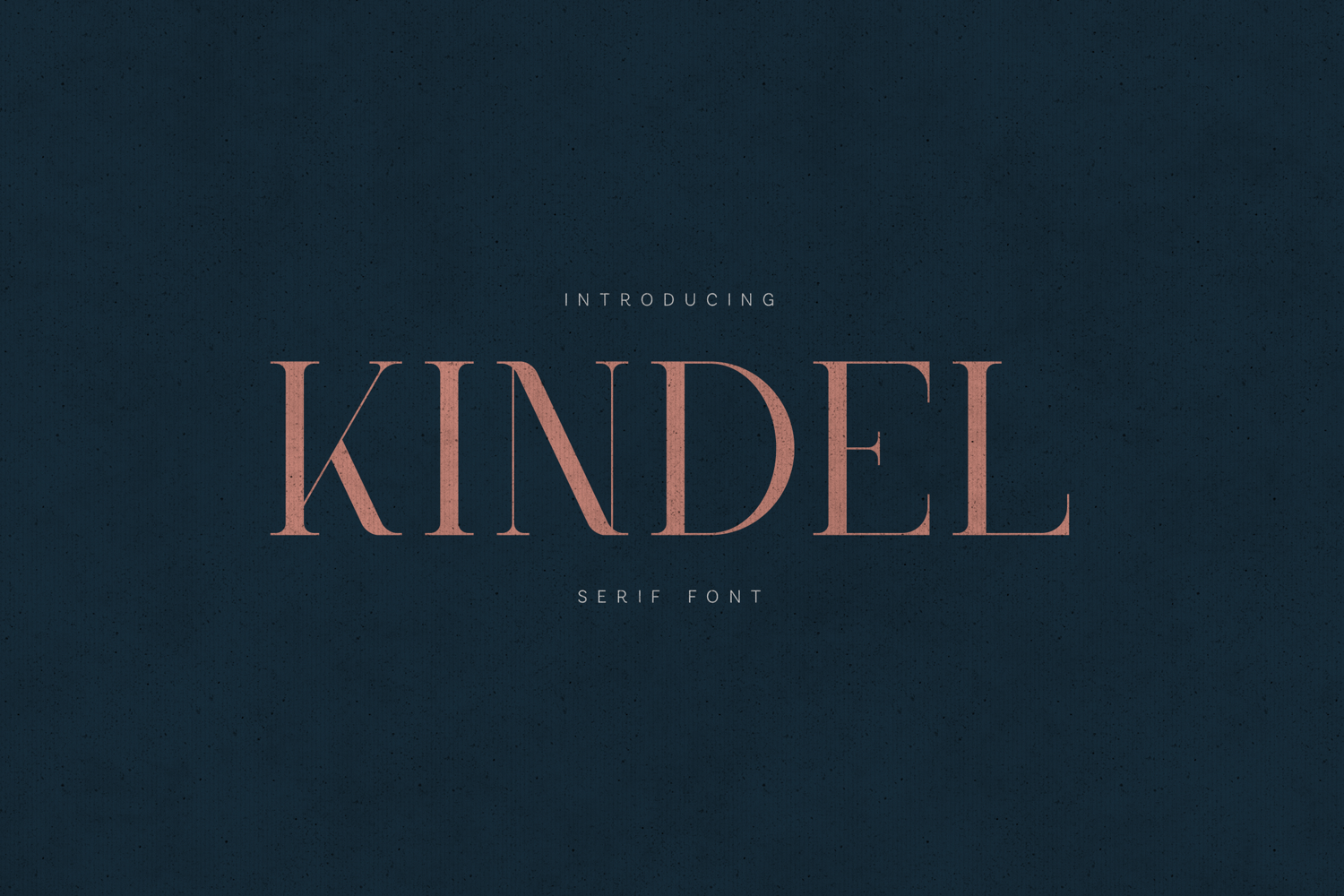
Kindel Elegant Modern Serif Display Font
Kindel is an elegant modern serif display font designed with refined contrast, graceful curves, and sophisticated letterforms. The typeface blends classical serif structure with a contemporary typographic approach, creating a balanced visual style that feels both timeless and modern.
The design features delicate serifs, high contrast strokes, and carefully proportioned characters, giving the font a luxurious and editorial appearance. Each glyph has been crafted to maintain harmony across words and lines, allowing the typography to feel smooth, refined, and visually confident.
Kindel was created as a display-focused serif, making it ideal for large typographic compositions where elegance and clarity are important. The font performs beautifully in editorial layouts, visual identities, headline typography, poster design, and sophisticated branding projects.
The refined shapes and vertical rhythm give Kindel a strong presence while maintaining readability and typographic balance. Its elegant structure allows designers to create compositions that feel premium, modern, and carefully crafted.
Kindel works especially well for:
• editorial typography
• branding systems
• logo design
• luxury packaging layouts
• modern poster compositions
• magazine headlines
• visual identity design
• sophisticated typography layouts
With its elegant serif structure and refined typographic balance, Kindel provides a versatile display typeface suited for designers who want to create modern and sophisticated typography.